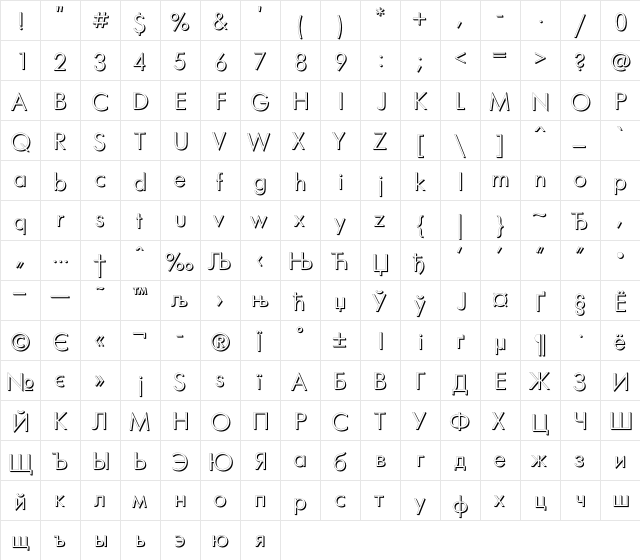
FuturisVolumeC Regular
Design Context for FuturisVolumeC Typeface
FuturisVolumeC has a distinctly futuristic character, with geometric precision and clean angles that feel at home in technology, gaming, and sci-fi contexts.